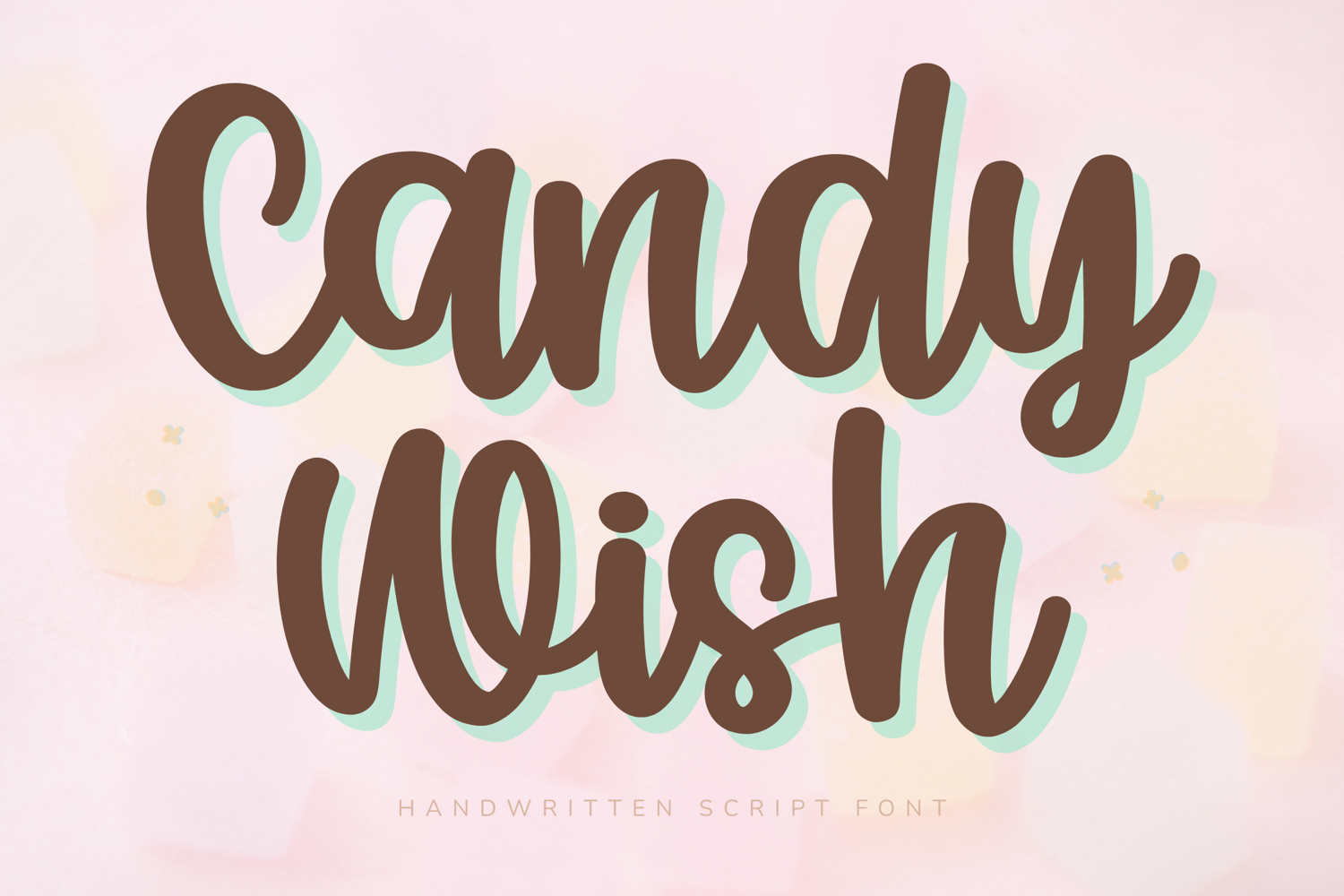
Candy Wish - Handwritten Script Font
Candy Wish is a sweet and whimsical handwritten script font inspired by pastel treats, joyful moments, and feminine creativity. With bold rounded strokes, playful curves, and a soft bouncy style, this font brings warmth and charm to every design.
Perfect for Cricut crafters, planner lovers, teachers, and owners, Candy Wish adds a delightful handcrafted touch to stickers, journals, logos, packaging, and social media graphics. Its cheerful personality makes every project feel cute, inviting, and full of imagination.
Key Features:
Uppercase and lowercase letters
Numbers and punctuation
Bold rounded handwritten style
Bouncy baseline
Smooth script connections
Design Style:
Candy Wish blends playful handwritten lettering with soft rounded shapes and lively movement. The result is a font that feels sweet, magical, and highly readable—ideal for feminine and creative designs.